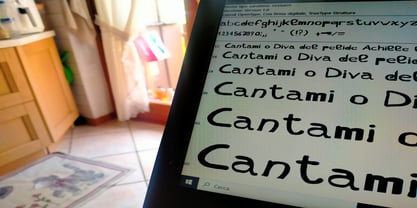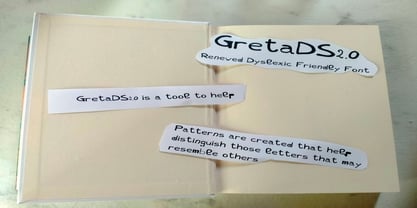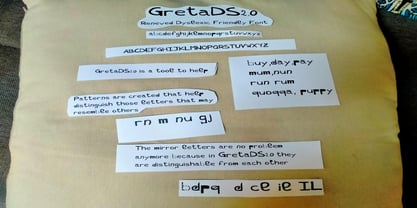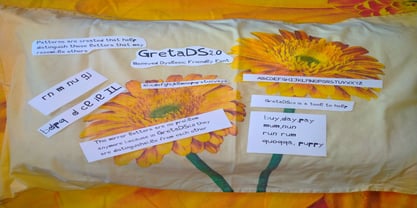
Greta DS 2.0 new
by FontAle
The Greta DS 2.0 new Font Family was designed by Alessandro Da Corte and published by FontAle. Greta DS 2.0 new contains 1 styles. More about this family
Renewed Font, more cleaned,balanced, new spacing,new kerning.
it's a Font to help, not for create business.
It's a tool to help reading.
It's a idea for create a new Dyslexic Friendly fonts
FontAle is a unique foundry dedicated to creating innovative fonts that support dyslexic readers. The name "FontAle" derives from the Italian word "Fontale," meaning origin or source, reflecting our mission to be the starting point for accessible typography. Inspired by a personal experience with my daughter Greta, who struggles with dyslexia, we sought to design a font that simplifies reading. Our flagship font, "GretaDS," features distinct modifications to common mirror letters like "pq" and "bd," as well as the lowercase "rn" and capital "I," ensuring clarity and ease of recognition. At FontAle, we aim to inspire other designers to join us in this journey, enhancing the reading experience for dyslexics and making it as effortless as drinking a glass of water. Join us in our mission to create a more inclusive world through thoughtful design.